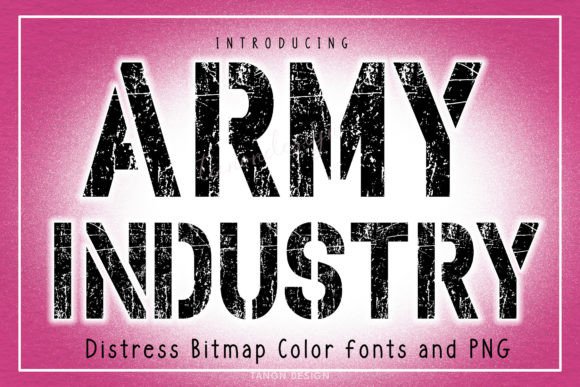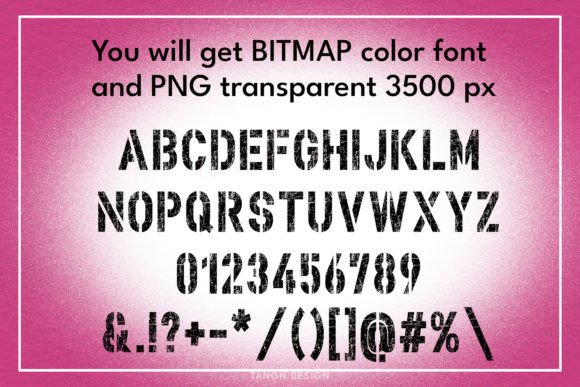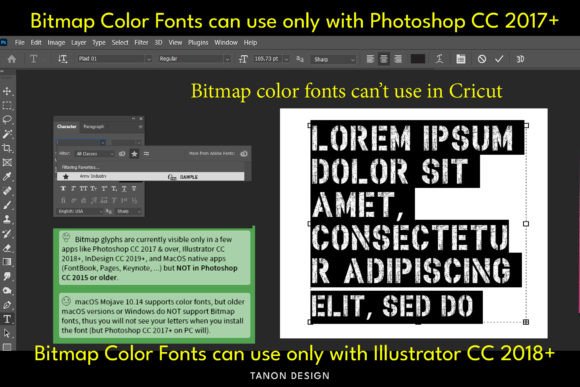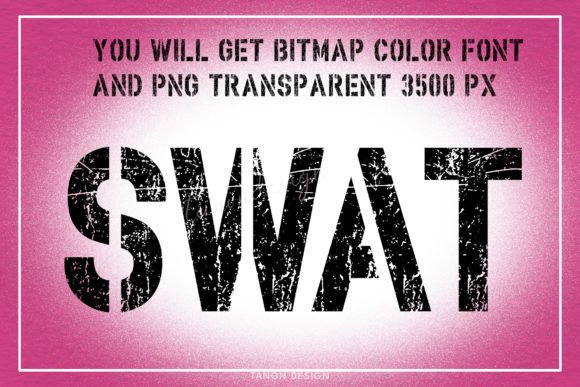
Discover the charm of Army Industry Font. This font is a perfect blend of modern aesthetics and classic appeal. Introducing “Army Industry” fonts a beautiful distress grunge Bitmap Color font. It will look fantastic on all your project designs including t-shirt designs, mug designs, digital designs, crafts, cards, and any projects!
Army Industry excels in headline applications, particularly for projects requiring a strong, gritty aesthetic. It’s ideal for branding related to military themes, industrial design, or vintage-inspired products. Use it sparingly in posters or packaging where impact is key, but avoid extensive use in body text or UI elements; its distressed nature reduces readability in smaller sizes or continuous blocks.
The font’s inherent boldness pairs well with clean, geometric sans-serif fonts like Montserrat or Futura for contrast and improved legibility in supporting text. For a more rugged look, consider pairing it with a slab serif such as Rockwell. Avoid delicate script fonts, as they would clash with Army Industry’s strong character.
Its core personality is bold, rebellious, and distinctly masculine. Projects needing a vintage or industrial feel, conveying strength and authenticity, will benefit from its unique visual texture.